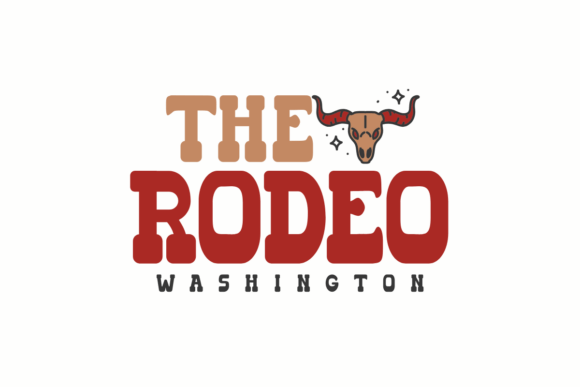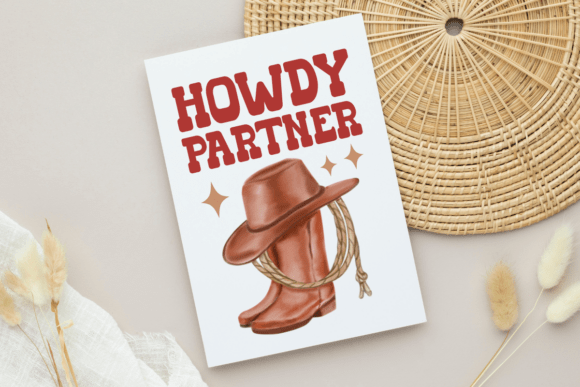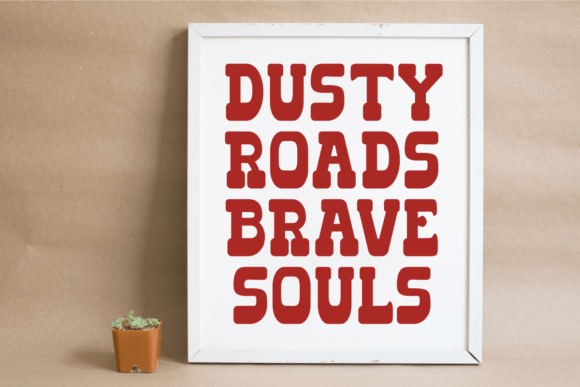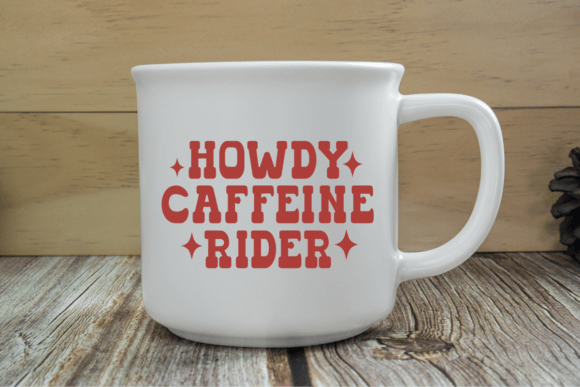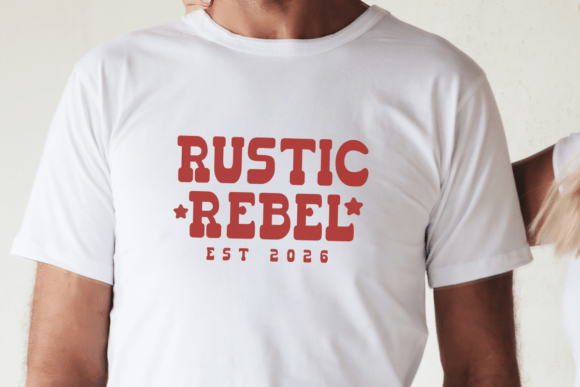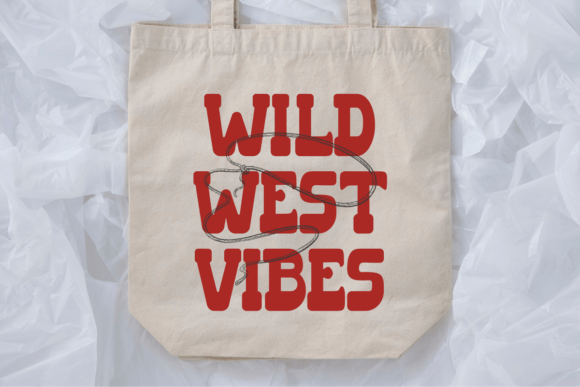
Introduction to Howdy Badge Font
Introducing Howdy Badge, a captivating, handmade western font dripping with authentic charm.
Tailored for inspiring quotes, stylish t-shirt graphics, striking posters, heartfelt greeting cards, and delightful invitation cards, it exudes versatility Its eye-catching character flawlessly adorns mugs, tote bags, trendy wall hangings, and playful key chains.